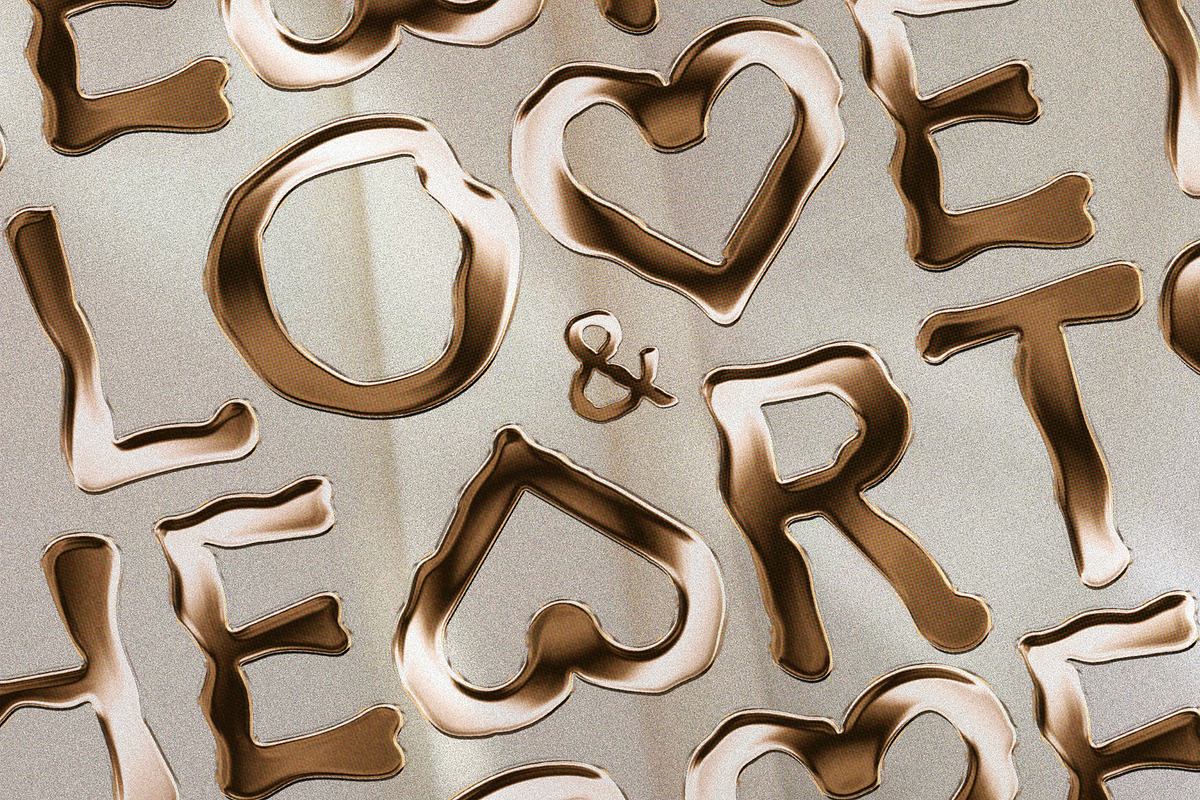
Love & Hearts - Golden SVG Font Pack Free Download is a luxurious and elegant font collection designed to infuse your projects with a touch of opulence. This pack includes eight distinct fonts, each featuring rich, golden textures that are perfect for wedding invitations, branding, social media graphics, and any design requiring a sophisticated flair.
Crafted by SilverStag, Love & Hearts - Golden SVG Font Pack Free Download offers a variety of styles, including script and serif fonts, all enhanced with shimmering gold details. These fonts are designed to work seamlessly in modern design software that supports SVG fonts, such as Adobe Photoshop CC 2017 and Illustrator CC 2018 or newer versions.